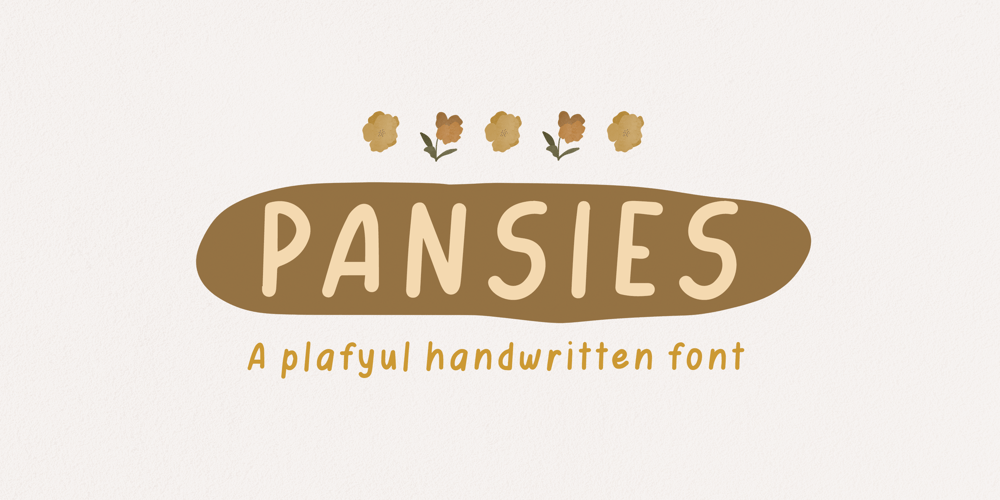
Pansies
Pansies font
Pansies Font Family was designed by Alessa Jo and published by Melonaqua. Pansies contains 1 styles and family package options. Pansies is a playful, multilingual handwritten font. It can be used for various projects like handmade craft tags, product labels, brand identity, journaling, cards, and anything that meets the eye of the designer.